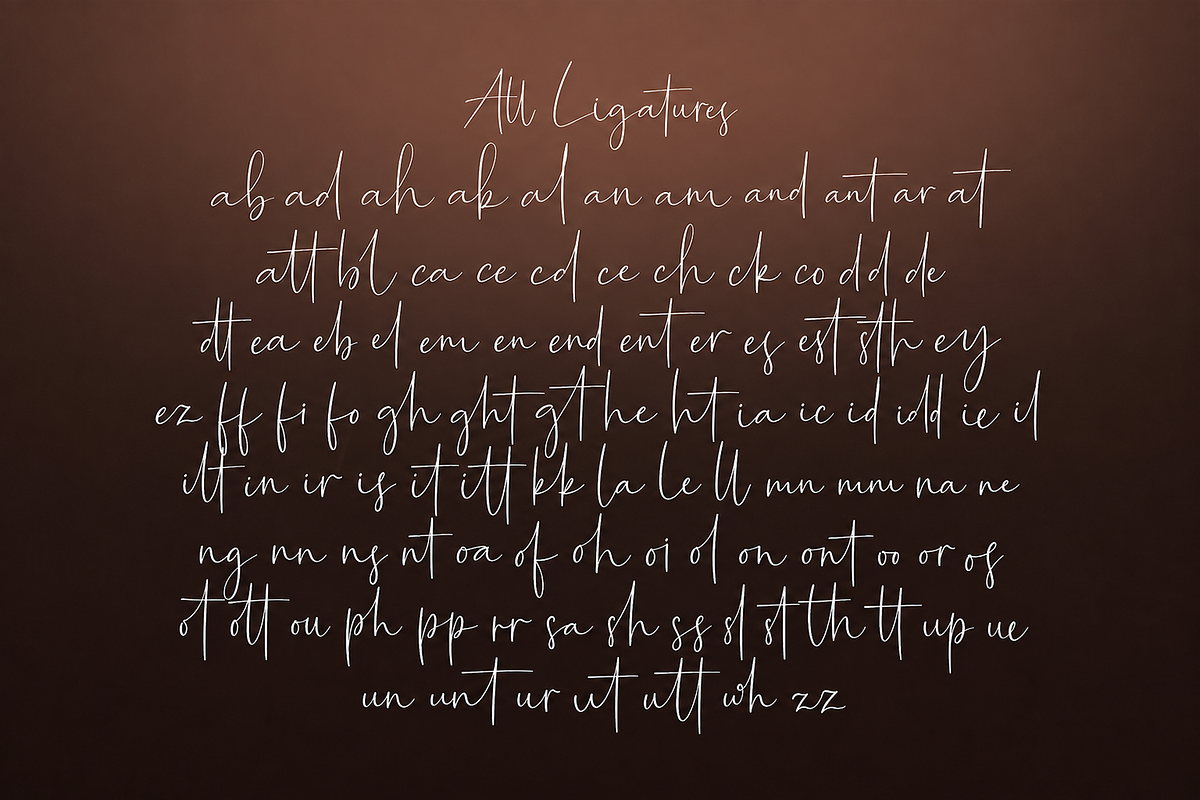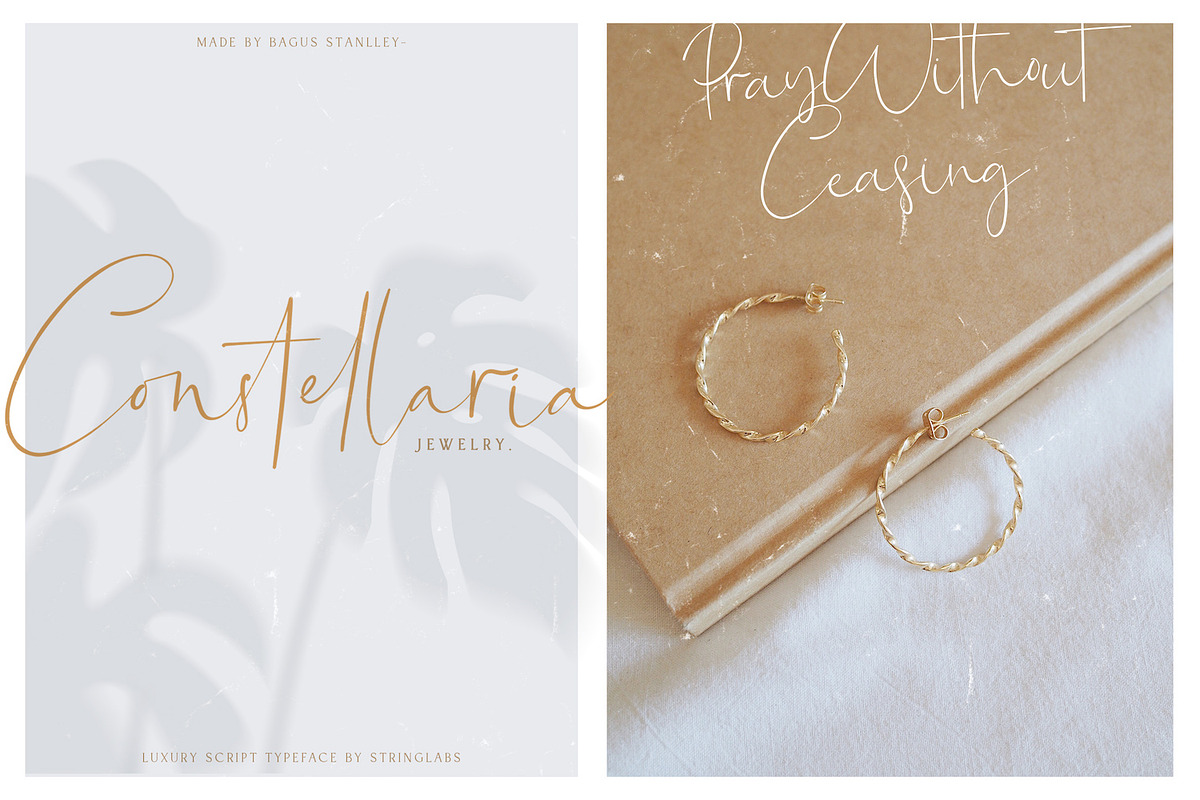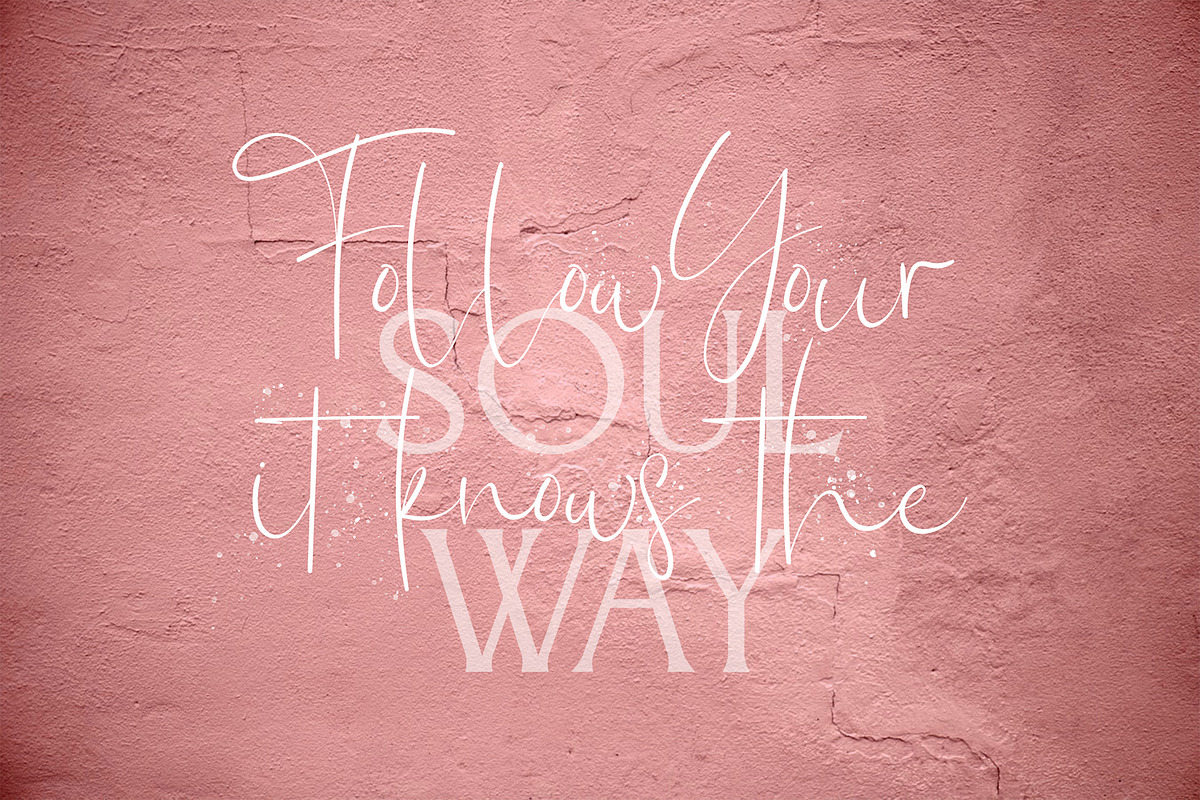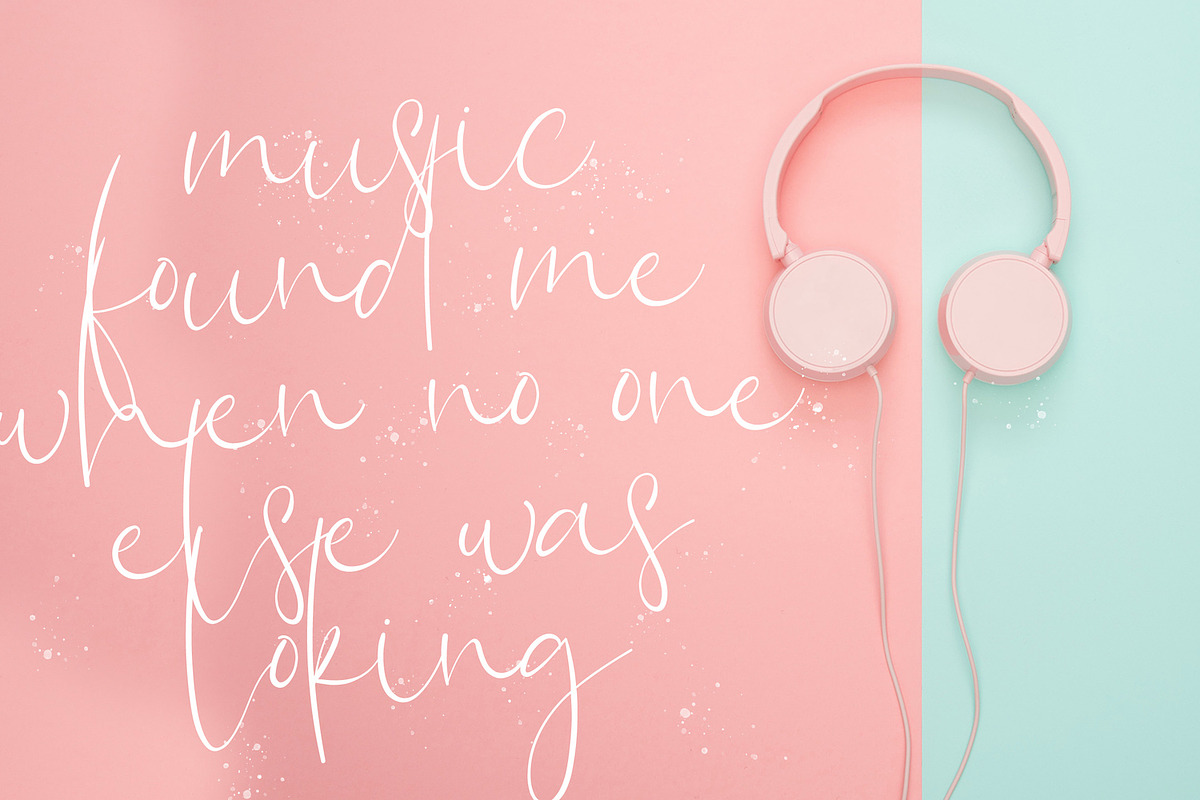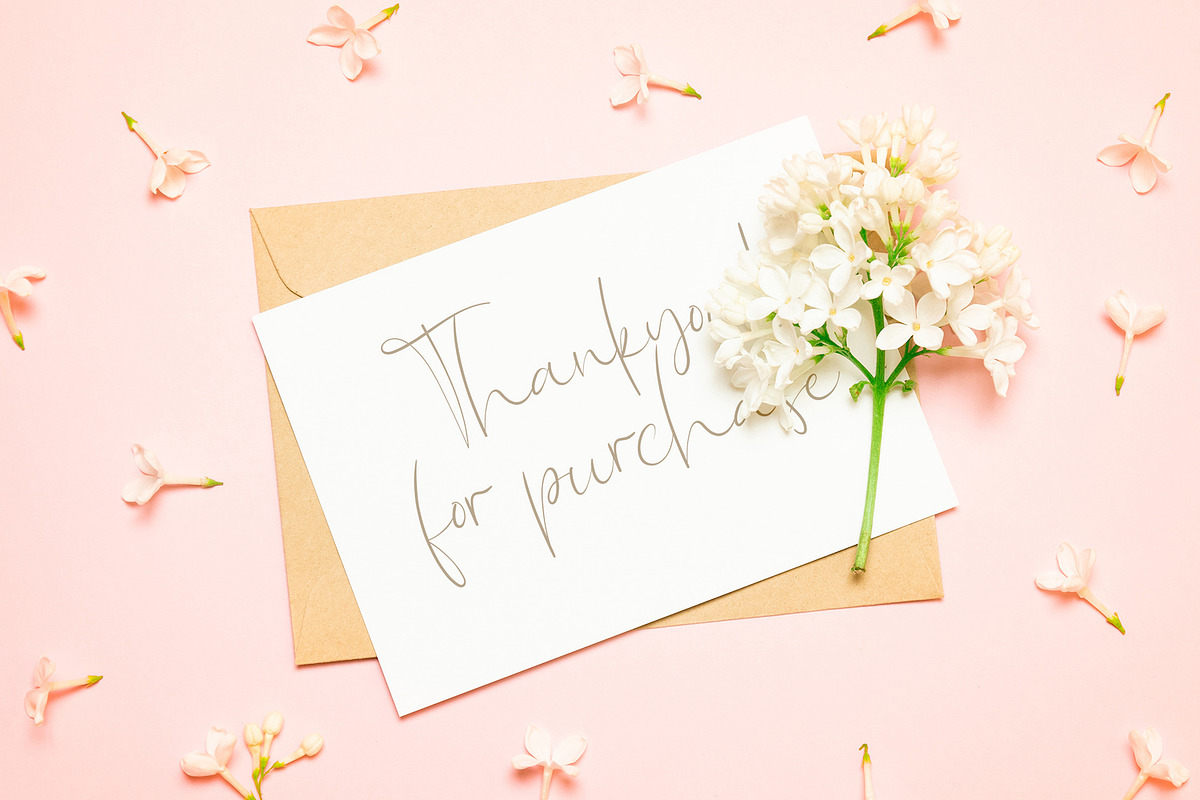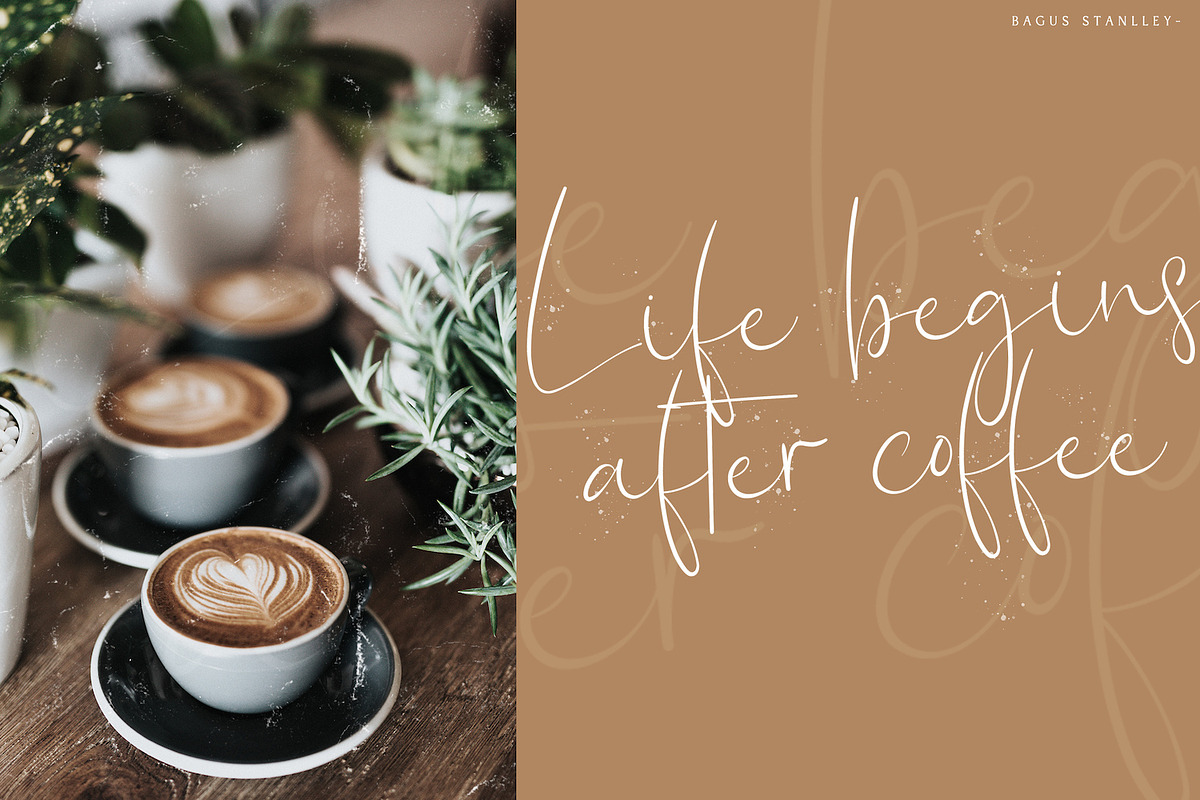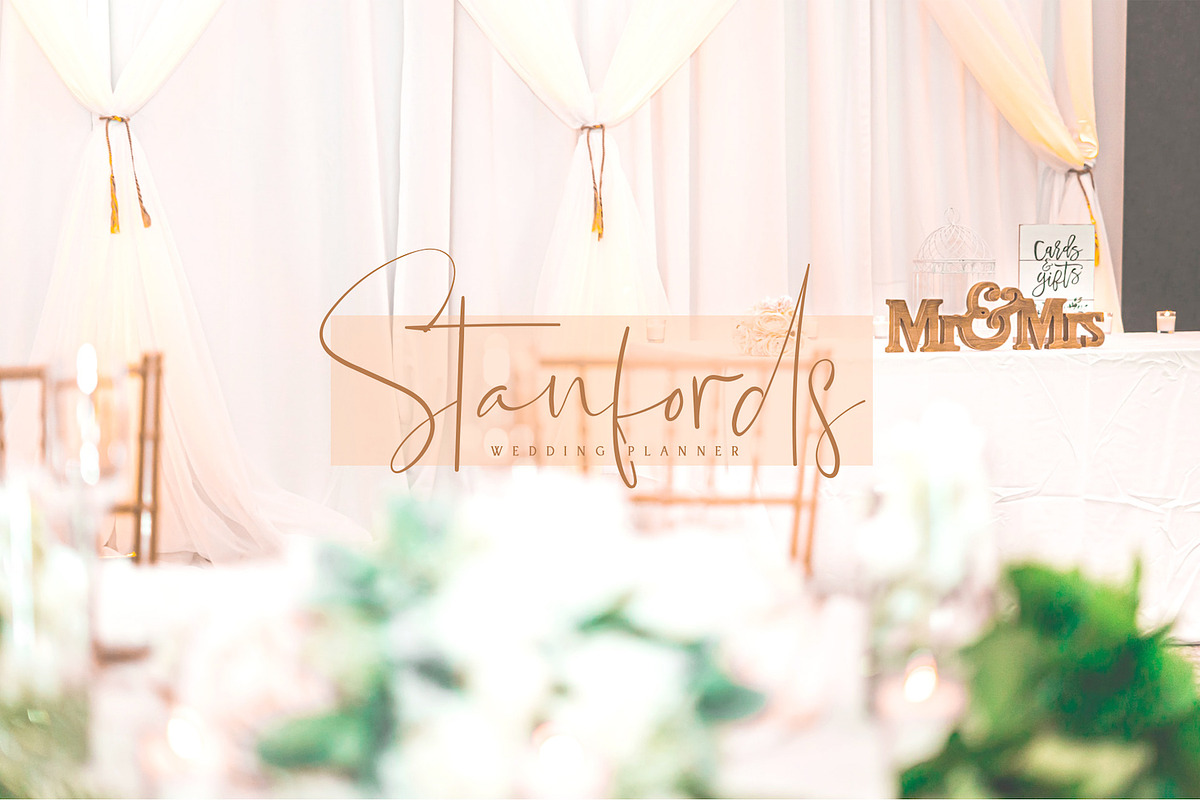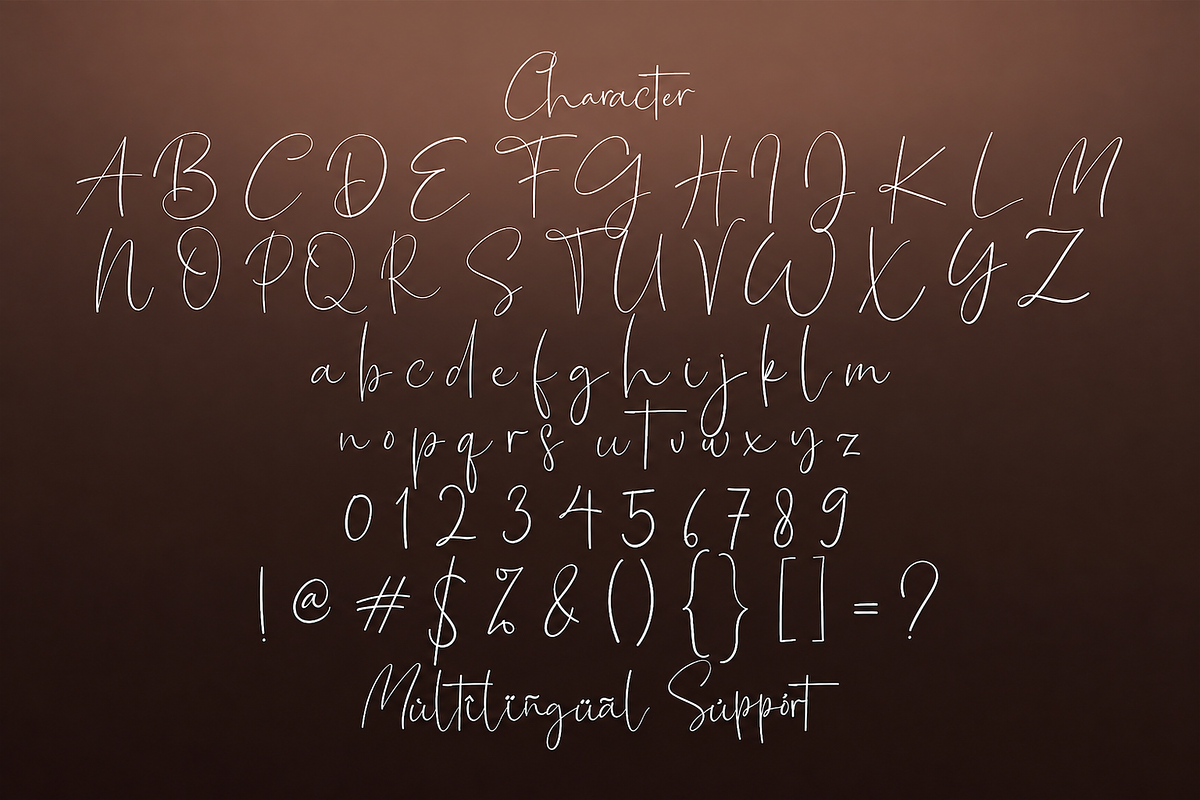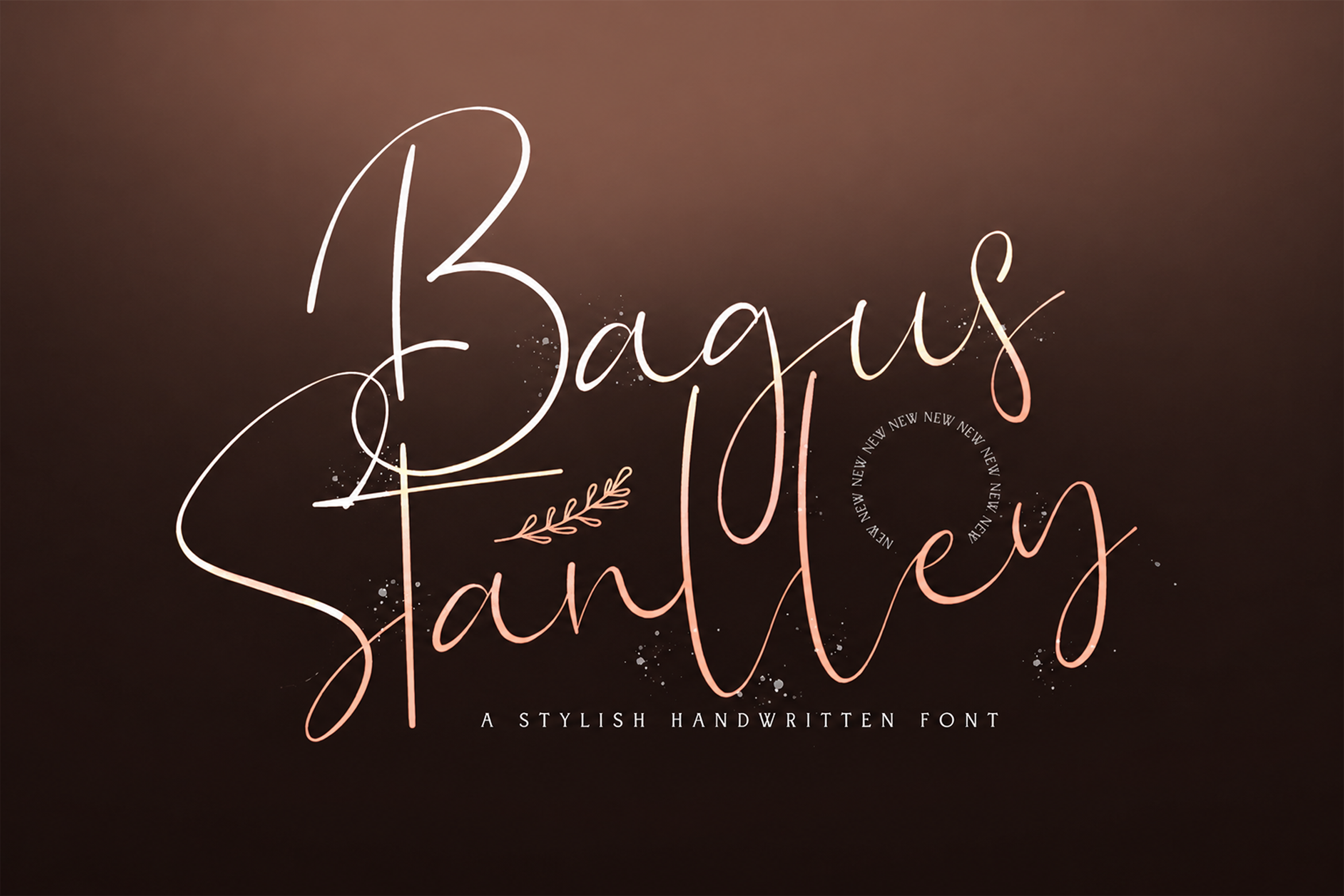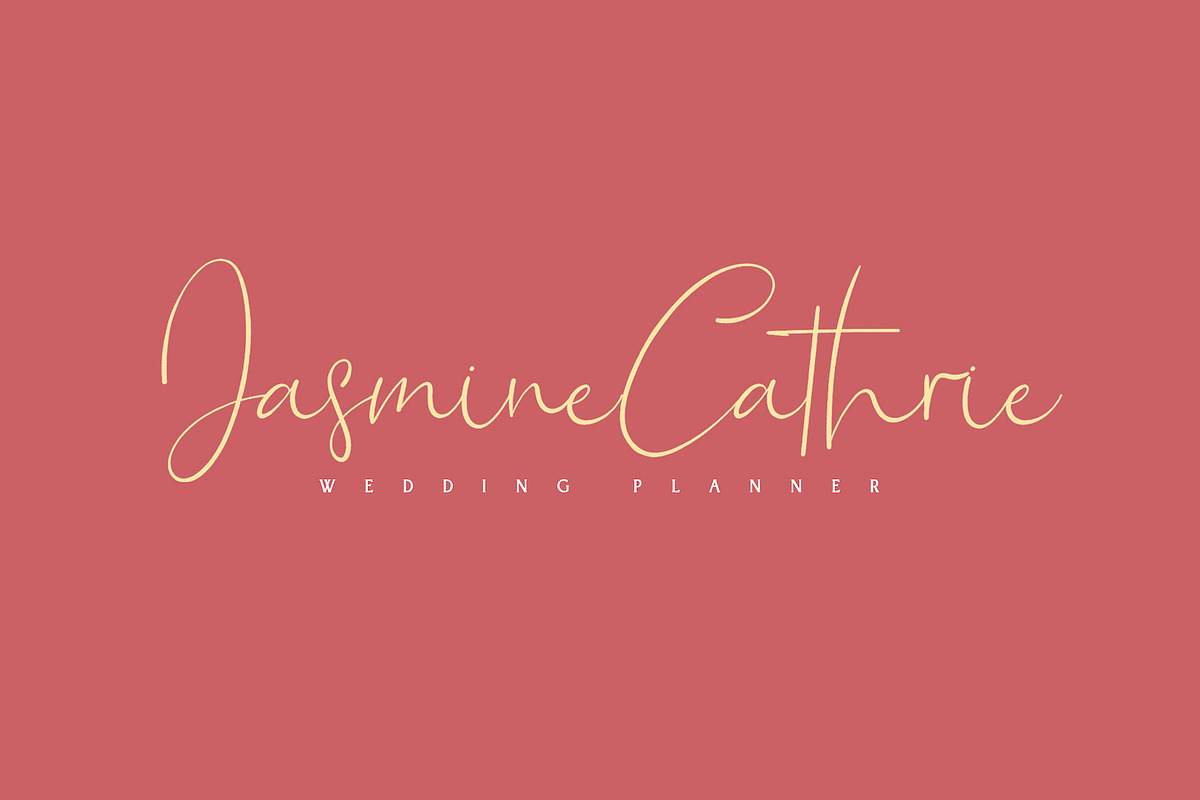
Bagus Stanlley - Stylish Script Font
Introducing Bagus Stanlley - Stylish Script Font
Bagus Stanlley is a modern handwritten font. It will elevate a wide range of design projects to the highest level, be it branding, headings, wedding designs, invitations, signatures, logos, labels, and much more!
Ton of Ligatures